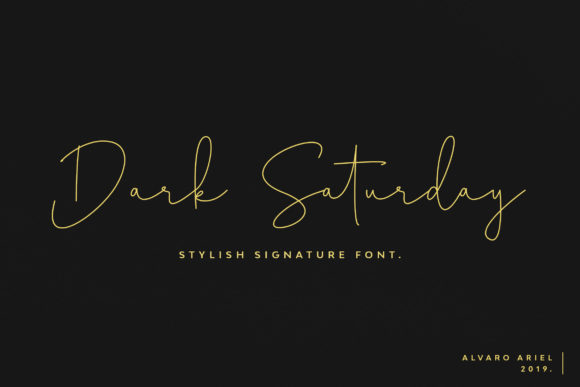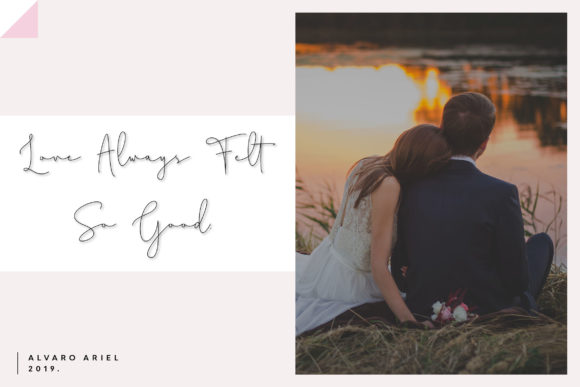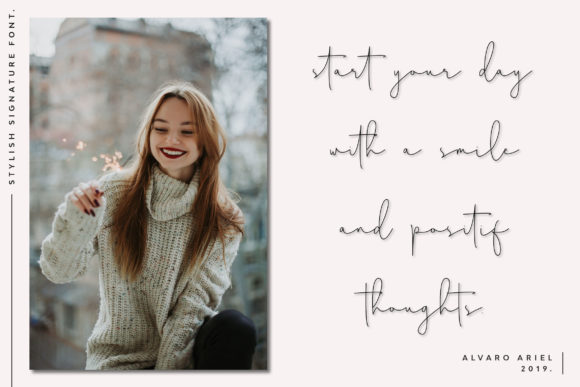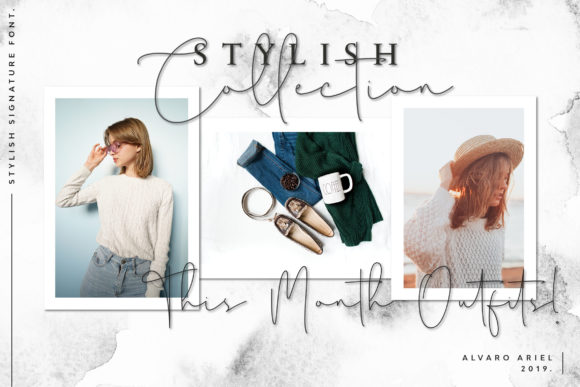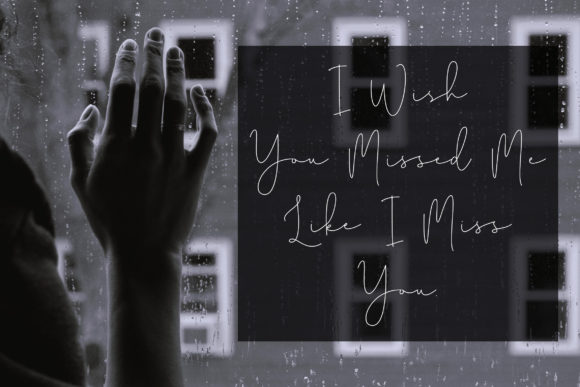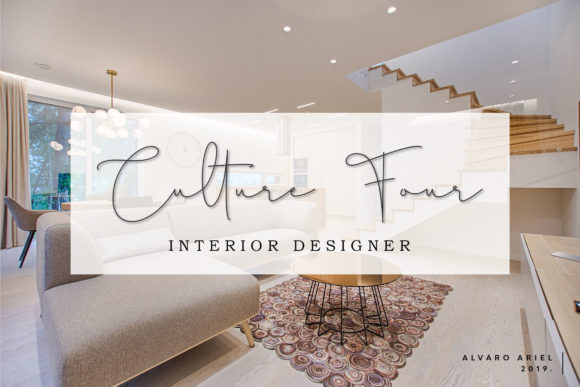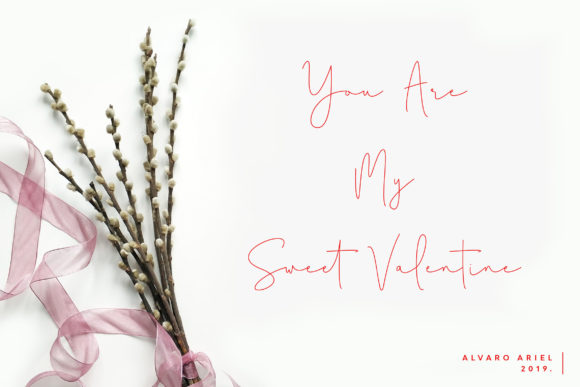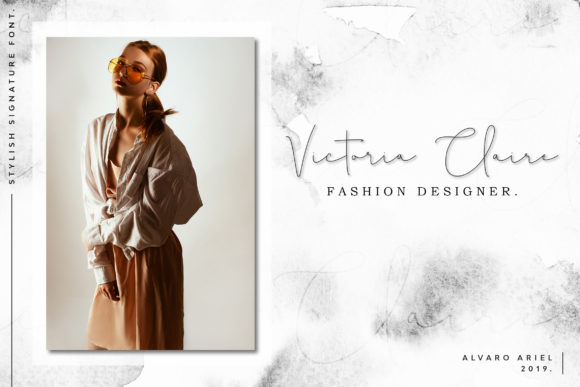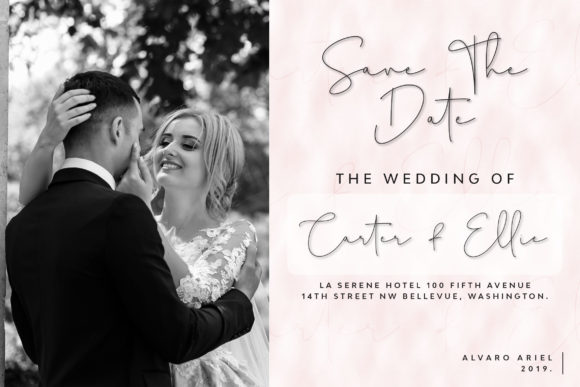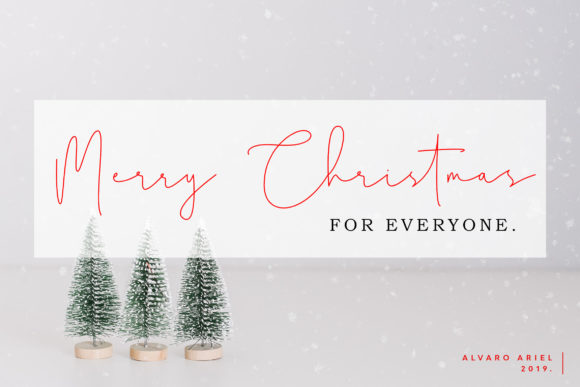
HomeScript FontsDark Saturday Font Script Fonts Dark Saturday Font FacebookXPinterestWhatsApp Dark Saturday Font Poster 2 Dark Saturday Font Poster 3 Dark Saturday Font Poster 4 Dark Saturday Font Poster 5 Dark Saturday Font Poster 6 Dark Saturday Font Poster 7 Dark Saturday Font Poster 8 Dark Saturday Font Poster 9 Dark Saturday Font Poster 10 About Dark Saturday Font Dark Saturday is a serious and beautiful script with a unique style. Get inspired by its unique charm! DOWNLOAD NOW People also explored Martabat Font Menu Board Marker Font Luca Noah Font Ceremony Font Hiora Font Mother Carmel Font Funday Font Lottie Font Quasar Soft 278 0 TagsDark Saturday Font Previous articleLovia FontNext articleBlackpool Font LEAVE A REPLY Cancel reply Comment: Please enter your comment! Name:* Please enter your name here Email:* You have entered an incorrect email address! Please enter your email address here Website: Save my name, email, and website in this browser for the next time I comment. Personal Use Free Alligator Font Personal Use Free Read more about this font Electroharmonix Personal Use Free Read more about this font Eva Personal Use Free Read more about this font Blessed Font Personal Use Free Read more about this font BLOG Free Fonts Risk: Why Free Fonts Can Be Dangerous for Designers Free Fonts Risk: Why Free Fonts Can Be Dangerous for Designers Using free fonts is a common practice in web and graphic design. However, the... Best Fonts for YouTube Videos: Make Your Thumbnails Stand Out How to Install and Use Fonts on Windows, macOS, and Web Projects Using Fonts in Digital Marketing: Tips to Strengthen Your Brand Identity